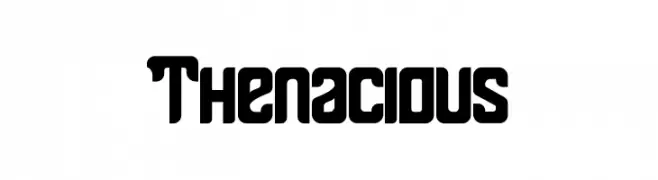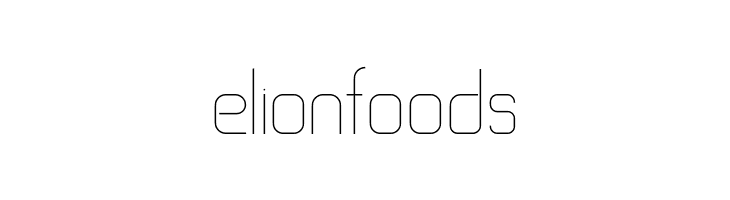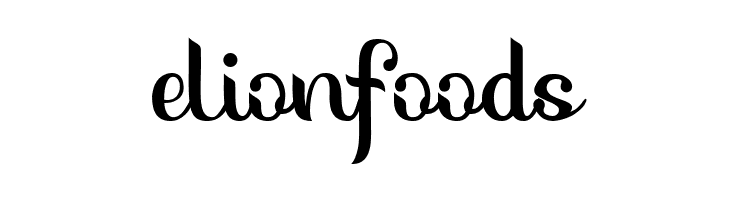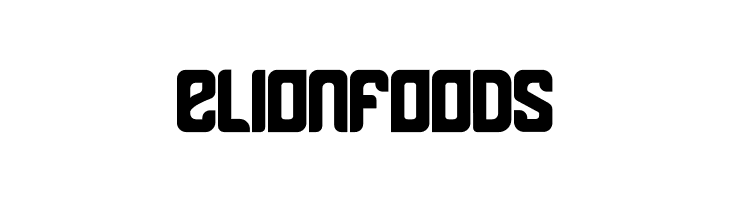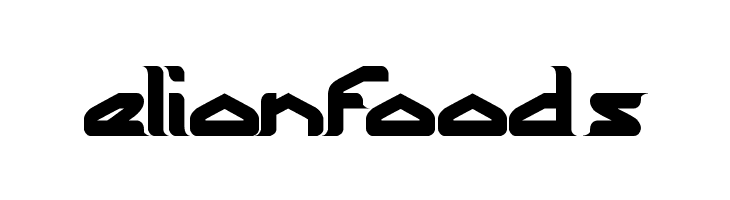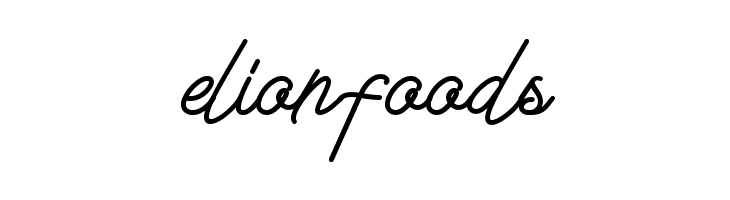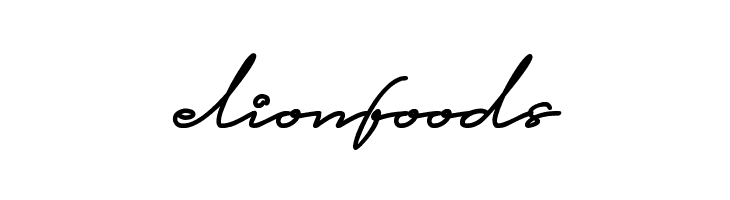
• The Sweet Teddy
A whimsical and elegant script font with flowing, interconnected letters.
• The Sweetheart
A whimsical and decorative font with flowing, cursive-like strokes and playful flourishes.
• The Wizard
An elegant, flowing script font with interconnected, looping letterforms.
• The Wizard of One CLick
A bold, angular font with a futuristic and geometric design.
• Thenacious
A bold, geometric font with uniform strokes and a modern touch.
• THIN
A modern, geometric font with thin lines and a minimalist style.
• Thin Grotesk Serif
A thin, elongated serif font with a modern yet classic style.
• This is Signature
A cursive, handwritten font with elegant, flowing lines and interconnected letters.